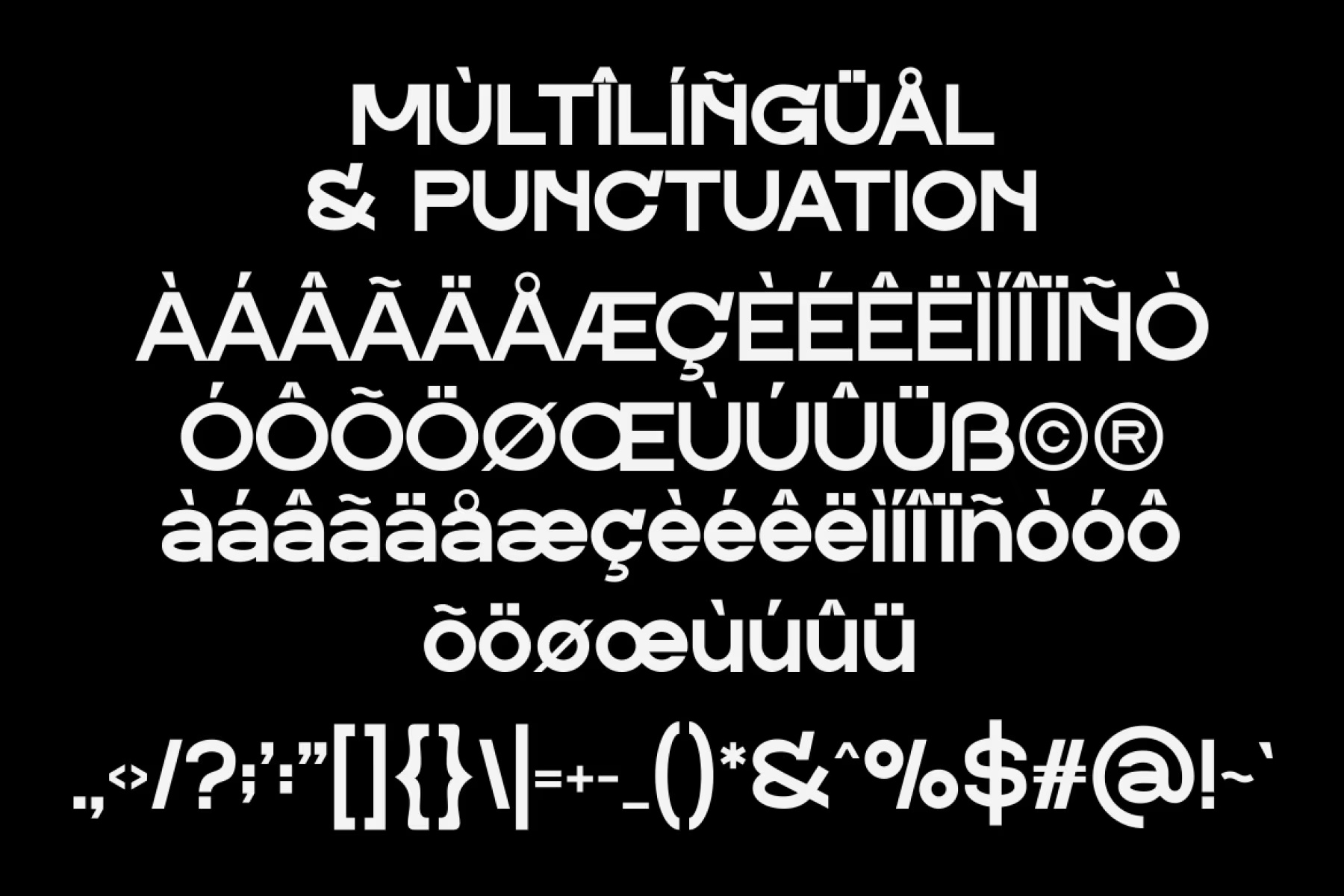
Maricle Font Family
Maricle is a modern sans-serif typeface that blends clarity and professionalism with a touch of elegance. Its balanced letterforms and clean design make it a versatile choice for various applications. Perfect for those seeking a sophisticated and contemporary aesthetic, Maricle adds a refined touch to any project.
Maricle Sans Serif Font Family